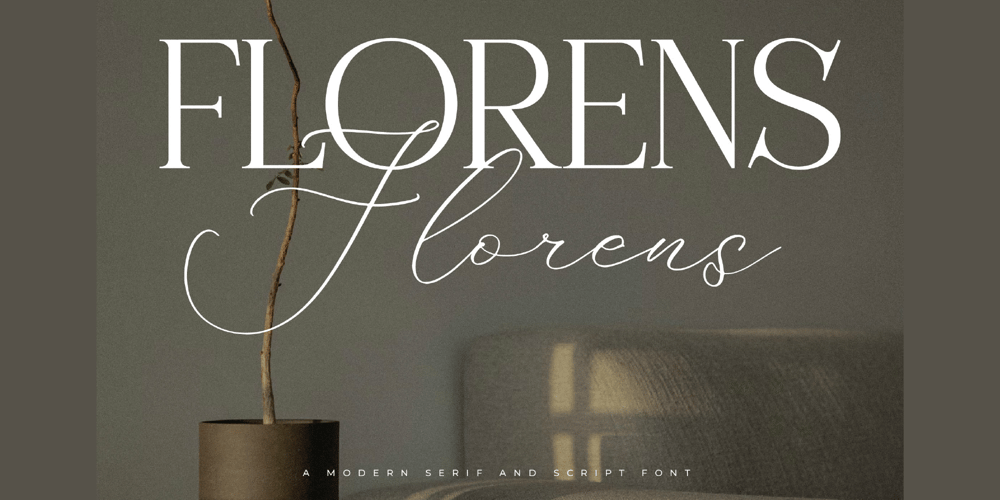
Florens Script Font Family was designed by Heru Utama Putra and published by Letterena Studios. Florens Script contains 2 styles and family package options. Florens, a font duo, seamlessly combines modernity with elegance. The serif font exudes sophistication and timelessness, while the script font adds a touch of fluidity and personal charm. This harmonious pair is perfect for upscale branding, wedding invitations, and editorial designs. Florens delivers a blend of contemporary and classic aesthetics, making it a versatile choice for designers.